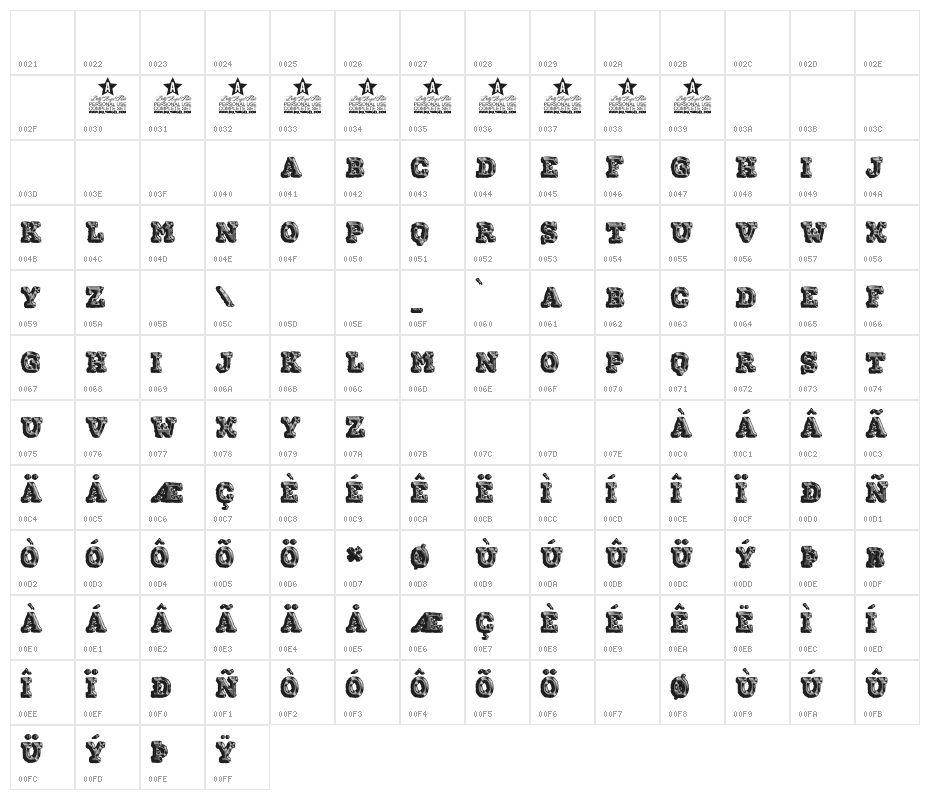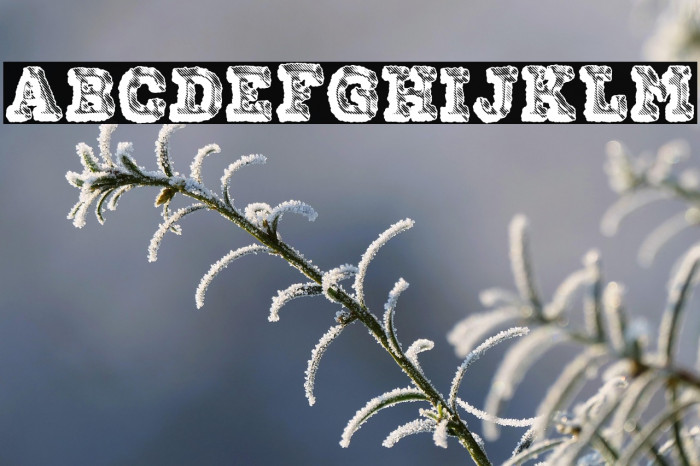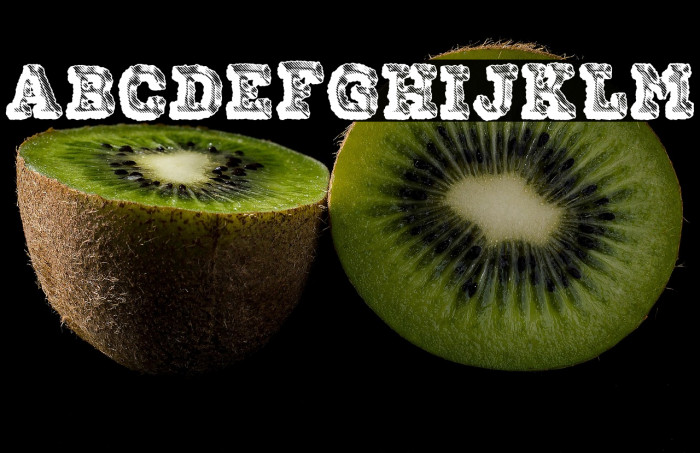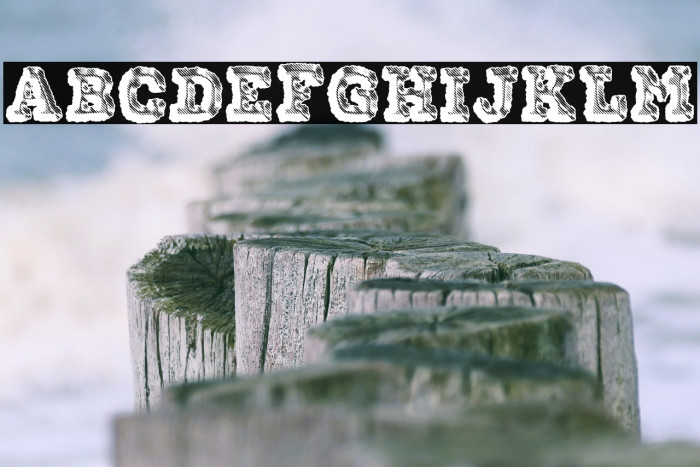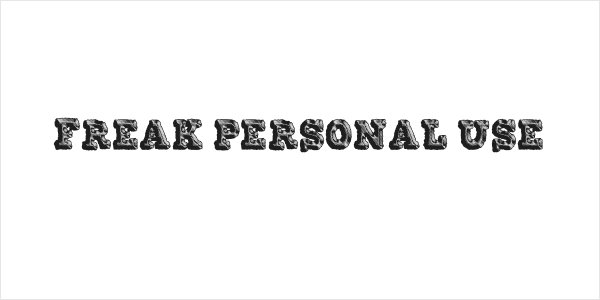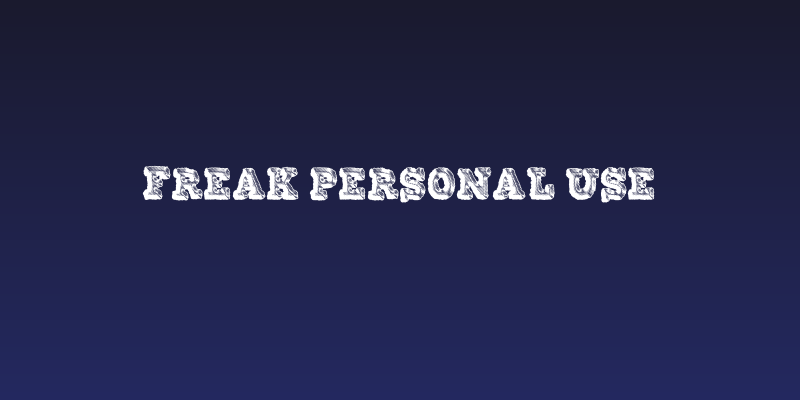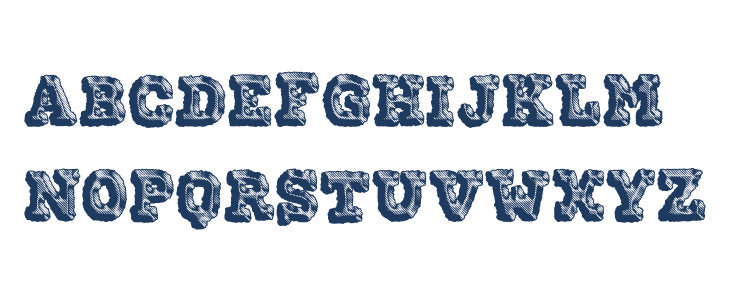
FREAK PERSONAL USE Font
FREAK PERSONAL USE Description
This font features a bold, decorative style with a textured, distressed appearance. Each letter is crafted with a rugged, vintage look, giving it a unique character that stands out. The uppercase letters are designed with intricate detailing, making them ideal for eye-catching designs. The font's boldness and texture make it suitable for projects that require a strong visual impact. Its distinctive style is reminiscent of old-school, hand-crafted signage, adding a touch of nostalgia and personality to any design.
| Proposed Projects | Ideal for posters, logos, branding, and any design requiring a bold, vintage aesthetic. |